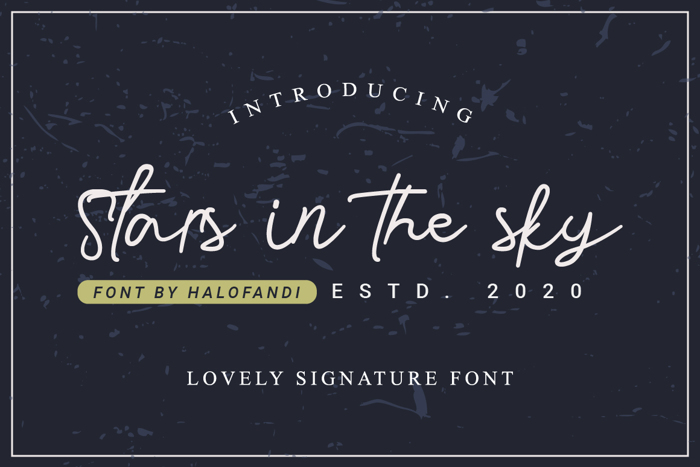
Stars in the sky Font
Stars in the Sky is an exquisite handwritten font, masterfully designed to become a true favorite. It maintains its classy calligraphic influences while feeling contemporary and fresh. Fall in love with it and bring your projects to the highest levels!